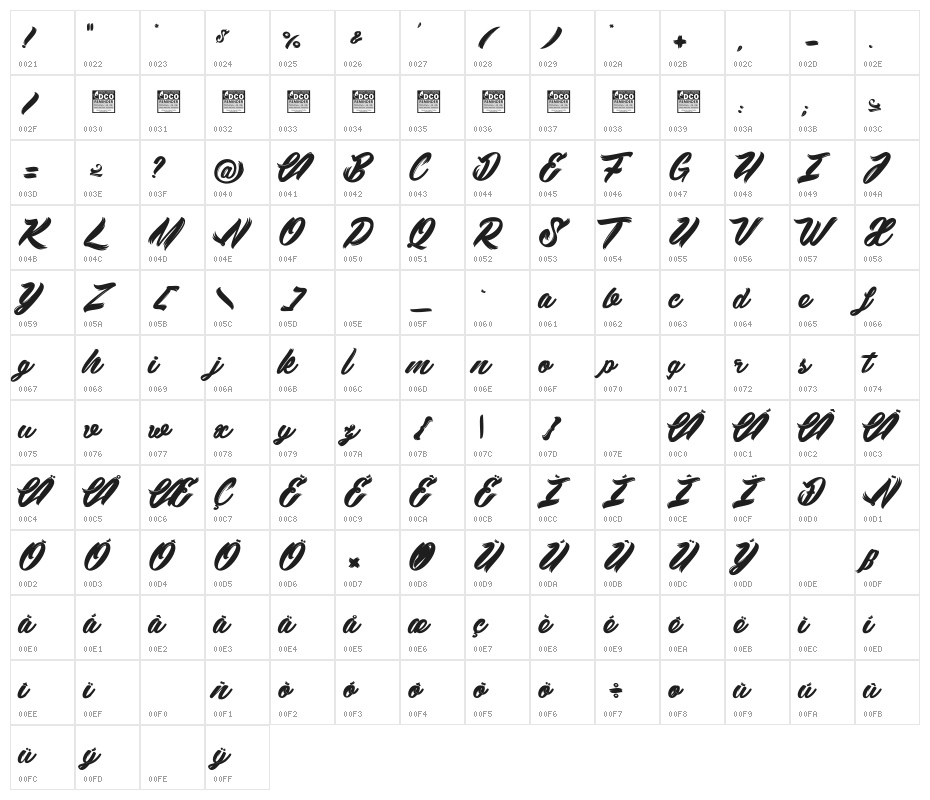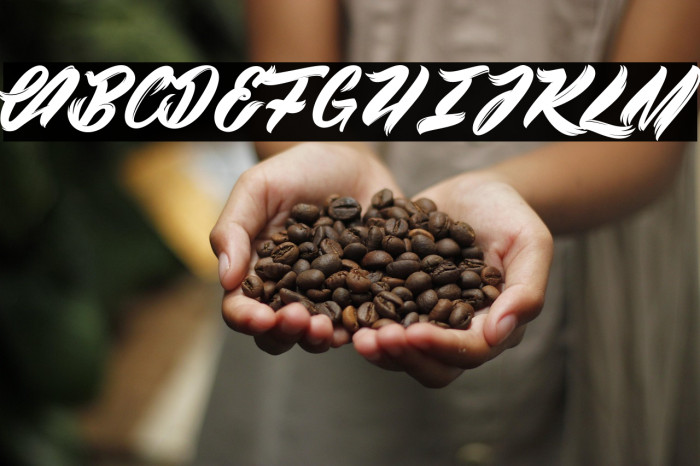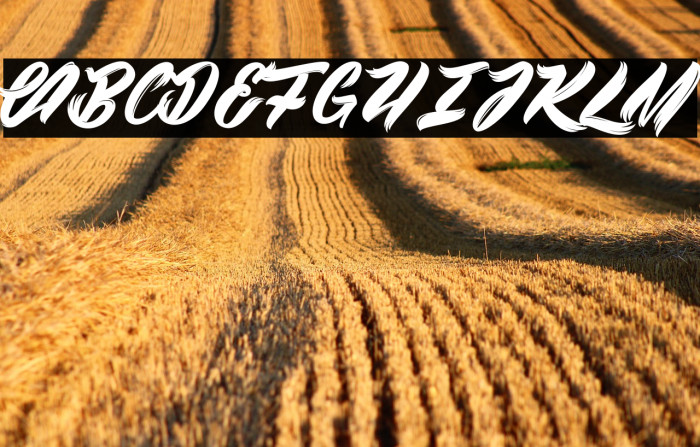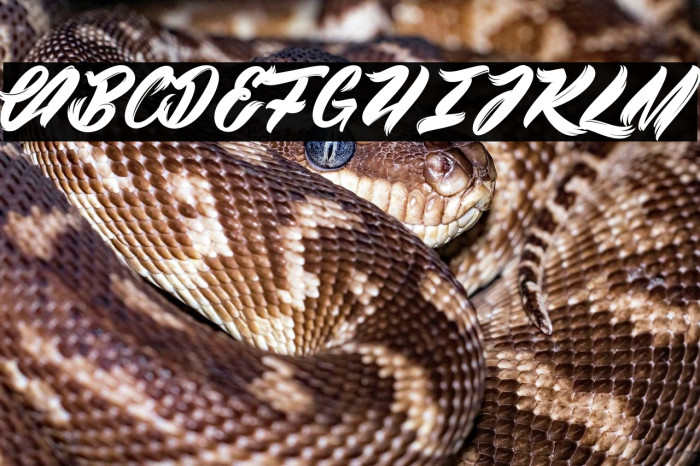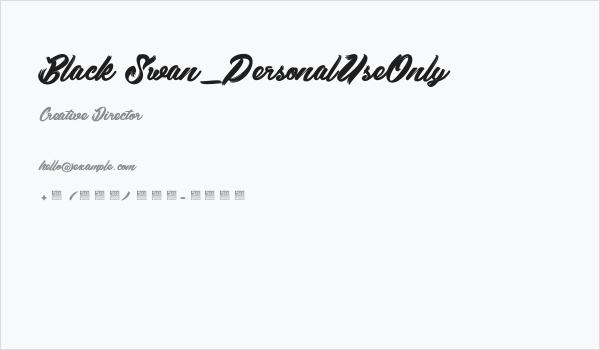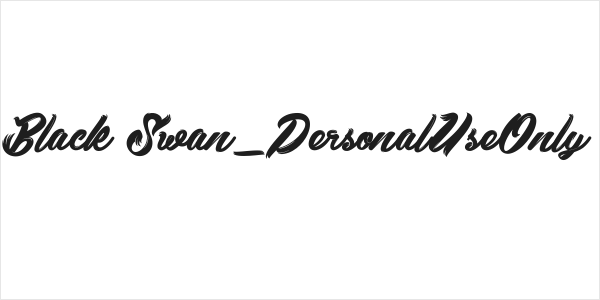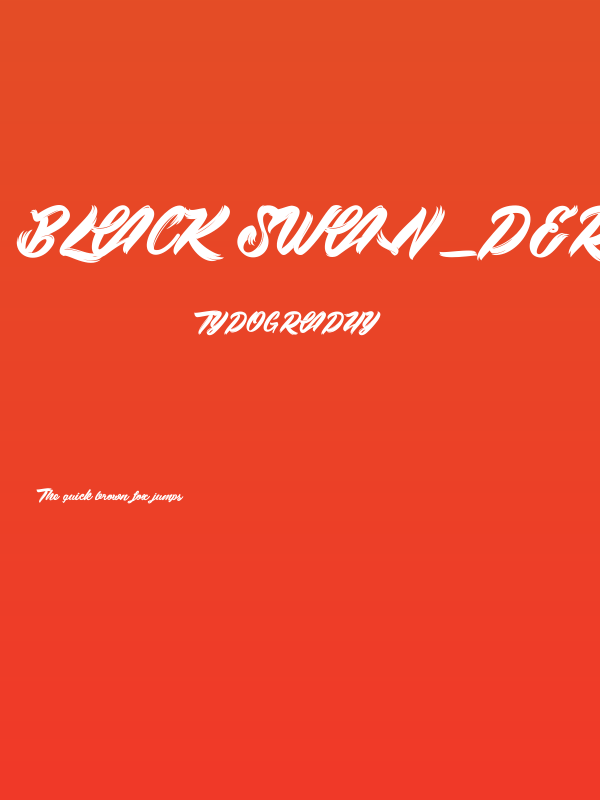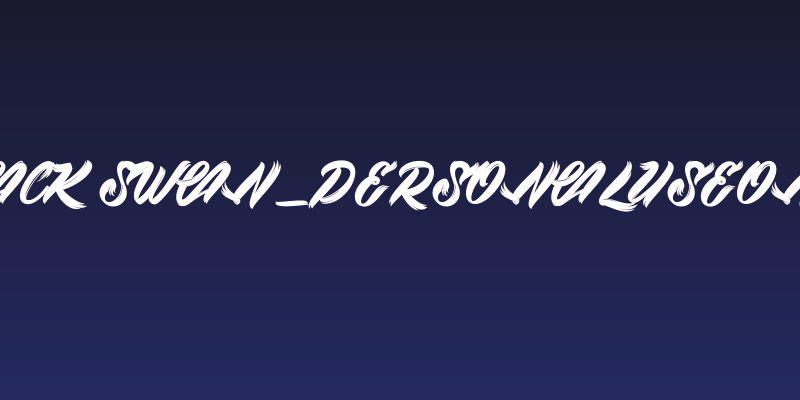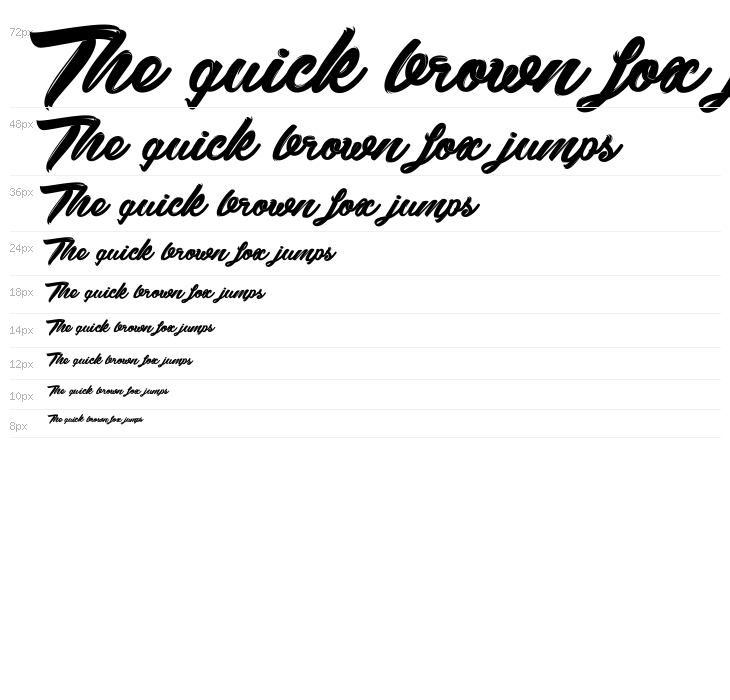
Black Swan_PersonalUseOnly Font
Black Swan_PersonalUseOnly Description
This font features a bold and expressive script style with a brush-like texture, giving it a dynamic and artistic appearance. The letters are connected in a flowing manner, reminiscent of calligraphy, with thick strokes and high contrast between thick and thin lines. The uppercase letters are particularly elaborate, with dramatic flourishes and swashes that add a sense of movement and elegance. The lowercase letters maintain the same fluidity, ensuring consistency throughout the text. This font is ideal for creating impactful designs that require a touch of sophistication and creativity.
| Proposed Projects | Ideal for branding, invitations, posters, and any design project that requires an artistic and elegant touch. |